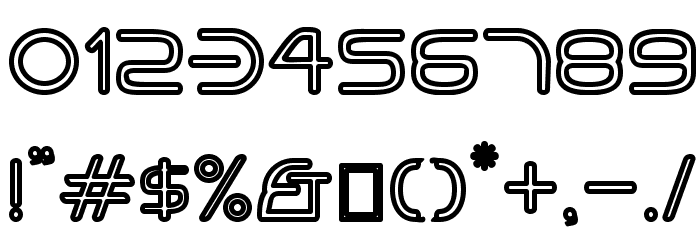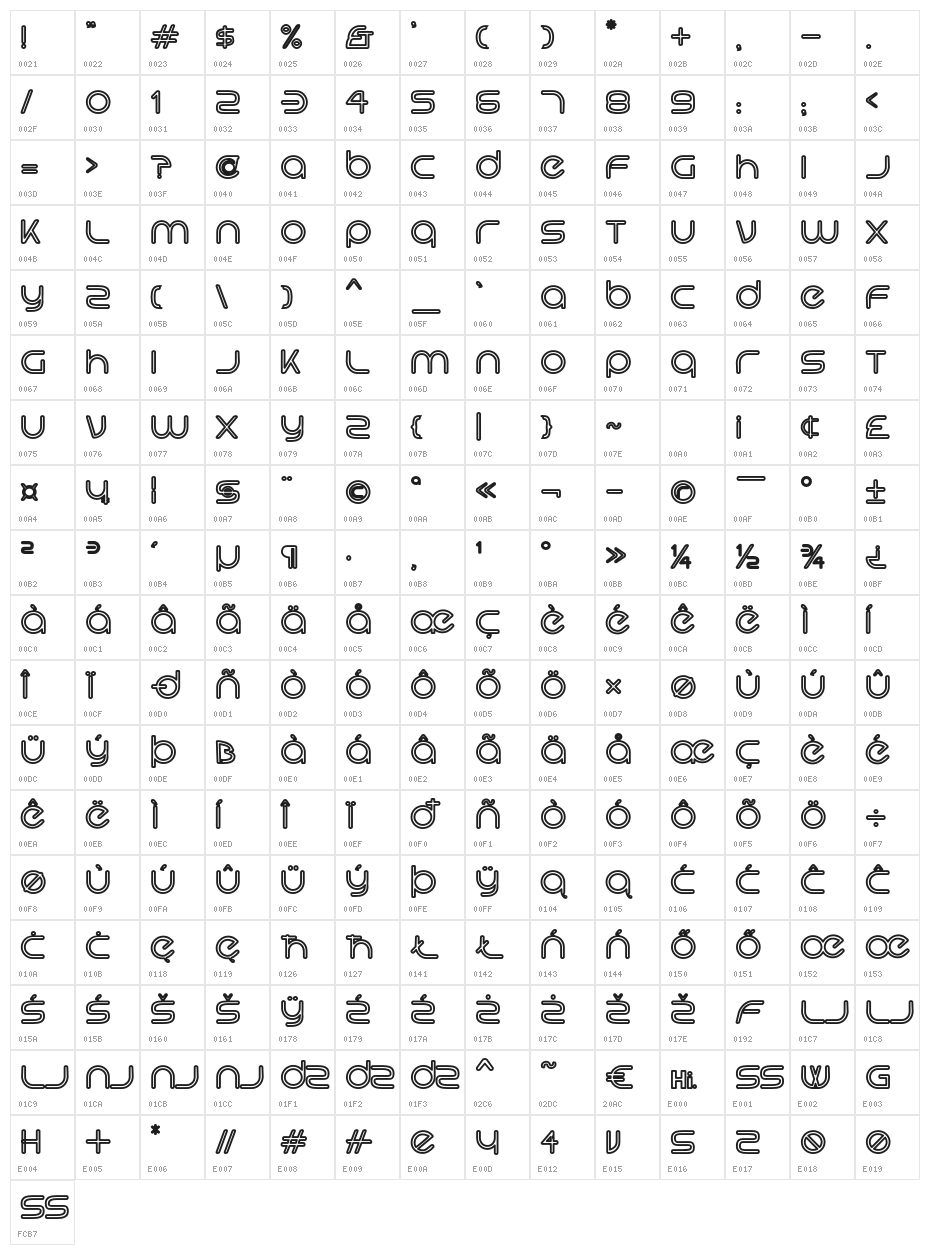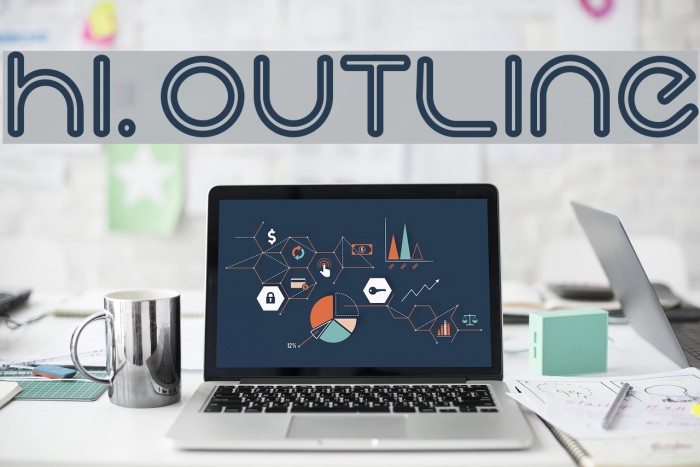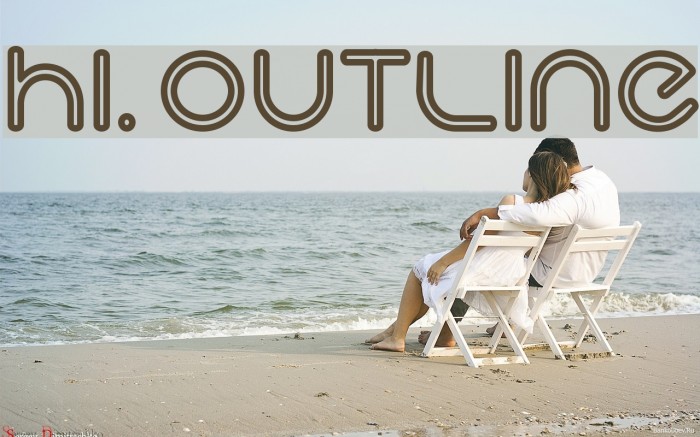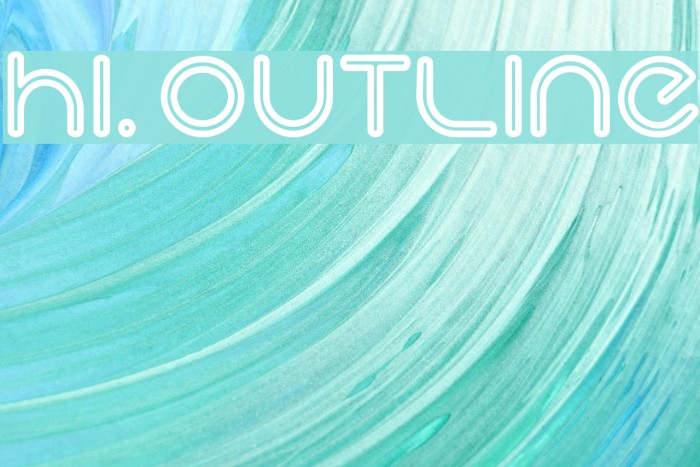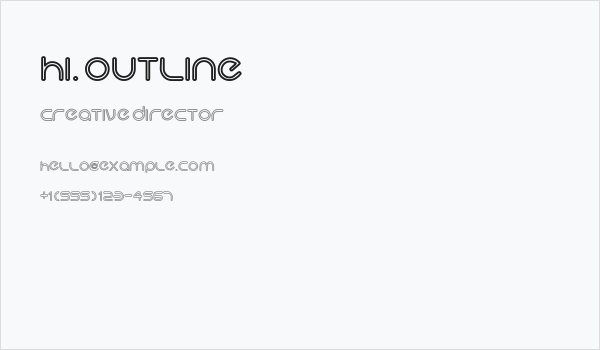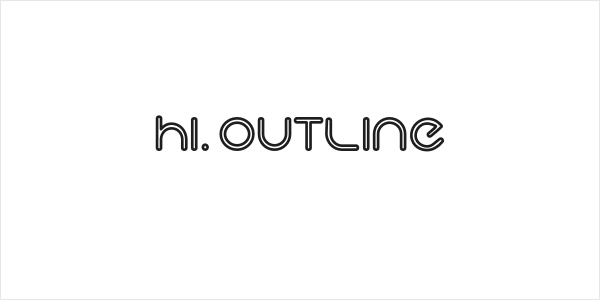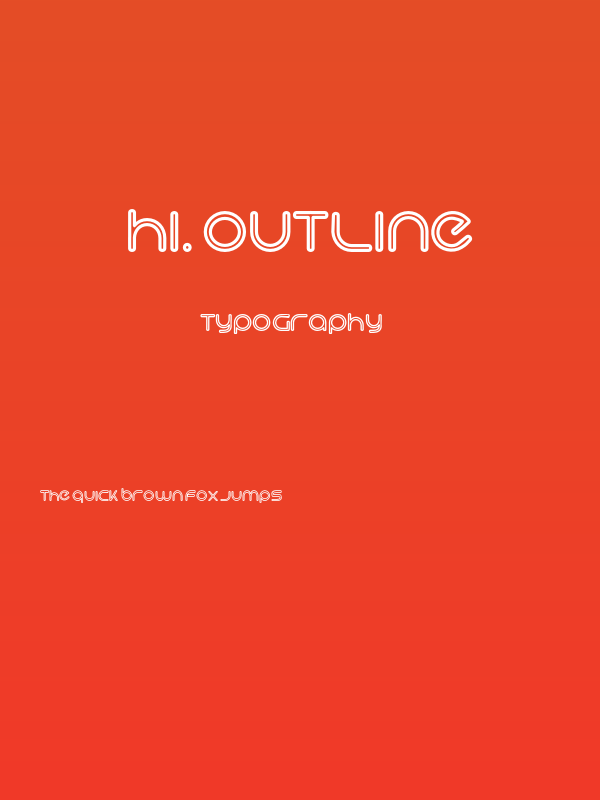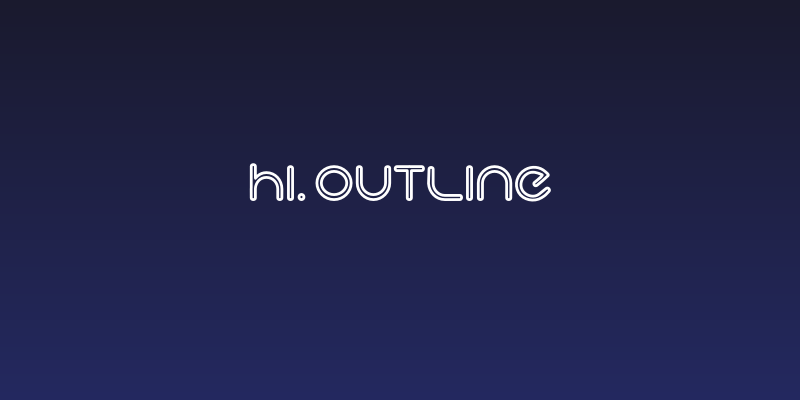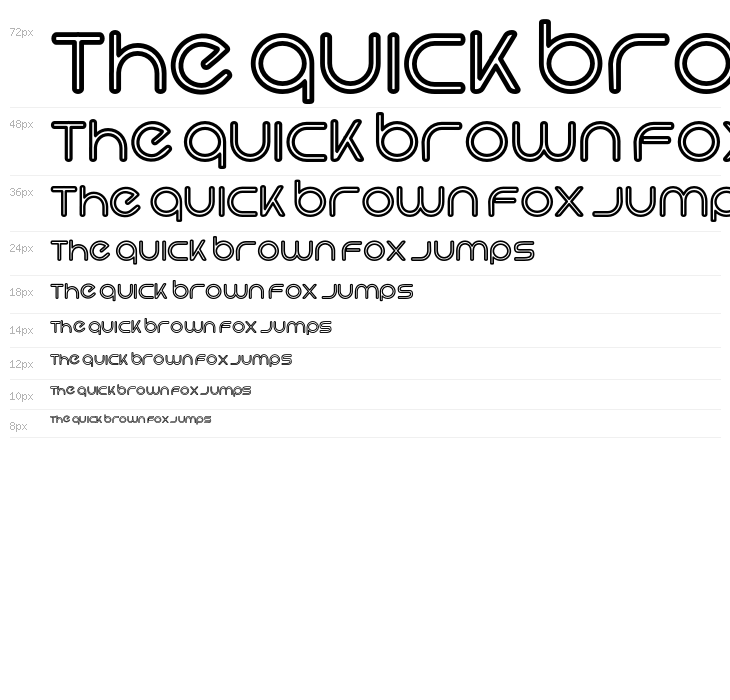
Hi. Outline Font
Hi. Outline Description
This font features a distinct outline style, characterized by its hollow, tubular appearance. The letters are uniformly structured with rounded edges, giving it a modern and futuristic look. The uppercase and lowercase letters maintain a consistent design, with smooth curves and a balanced proportion. Numbers and special characters follow the same outline style, ensuring a cohesive visual identity. The font's clean and open design makes it highly legible, even at smaller sizes. Its unique style is suitable for creating eye-catching headlines, logos, and other design elements that require a bold and contemporary aesthetic.
| Proposed Projects | Ideal for futuristic branding, tech-related projects, modern posters, and digital media. |